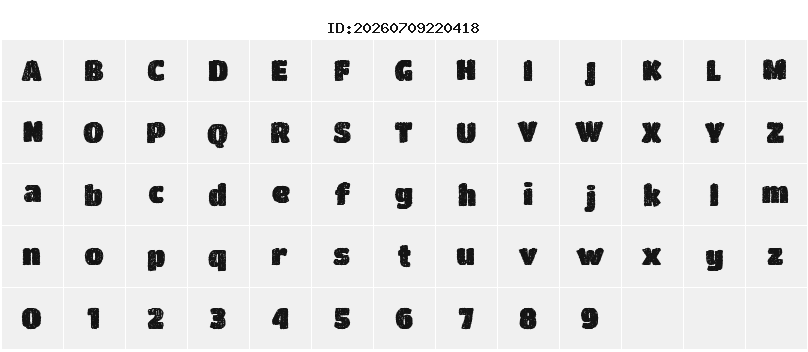
DCC - Bushido Preview
• Font Name: DCC - Bushido
• Full Font Name: DCC - Bushido
• PostScript Name: DCC-Bushido
About DCC - Bushido.ttf
DCC - Bushido.ttf is a modern, elegant sans-serif font designed for ultimate readability and visual harmony. Perfect for branding, headlines, web design, and print materials.